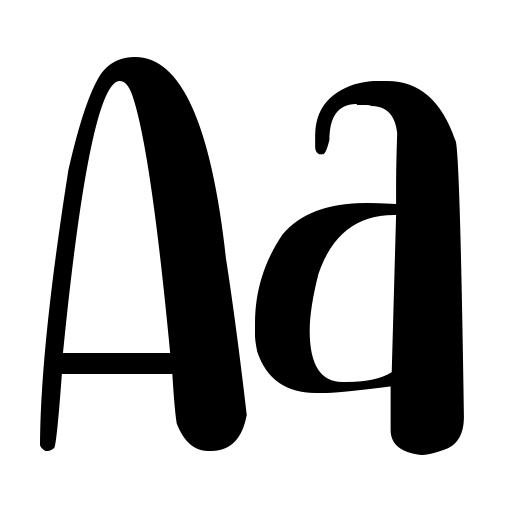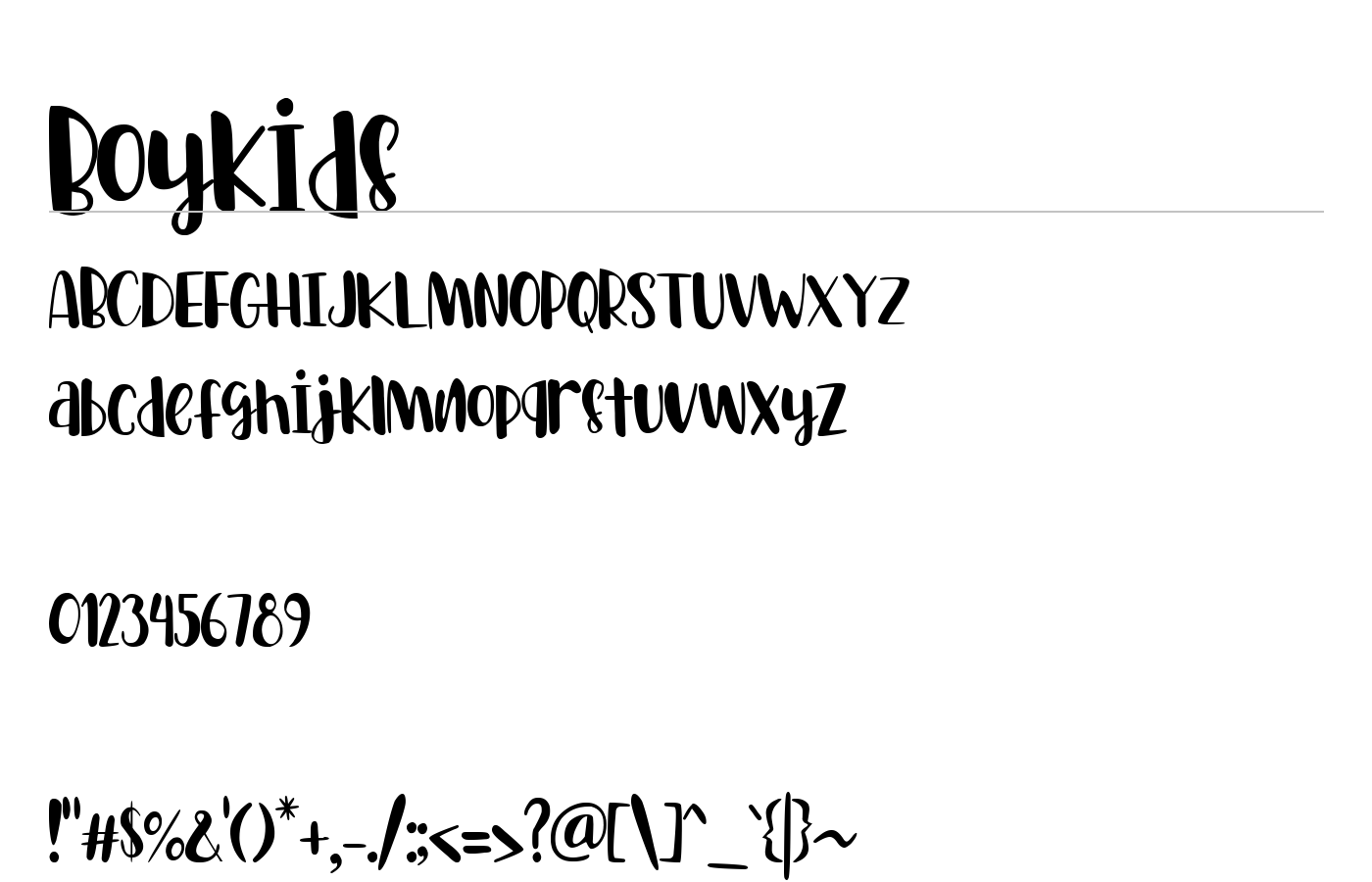
Boykids is a playful and informal handwritten sans serif font with a casual, childlike charm. It features a lively mix of thick and thin strokes with slightly irregular shapes, giving it an energetic and friendly feel perfect for children’s materials, playful branding, and creative projects. Its tall, condensed letterforms and quirky character details make it stand out in headlines, logos, and packaging where a fun and approachable look is desired.
Boykids Font
About Boykids Font
| Font family | Boykids Font |